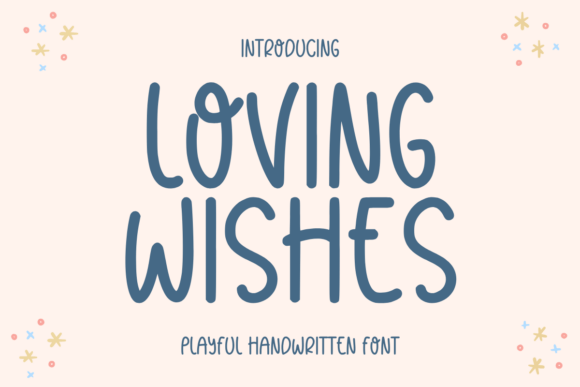
Loving Wishes Font: The Perfect Addition to Your DIY Projects
In the world of digital crafting, a font can make all the difference in bringing your creative vision to life. If you’re a fan of handwritten fonts that exude a sense of playfulness and friendliness, then you’re in luck. Introducing Loving Wishes, a fun and playful handwritten font that’s perfect for a wide range of DIY projects, from crafts and planners to KDP, stickers, greeting cards, and more.
What Makes Loving Wishes Font So Special?
Loving Wishes font is designed to bring a touch of whimsy and charm to your projects. Its cute and friendly style makes it an ideal choice for crafters, designers, and makers who want to add a personal touch to their creations. Here are some of the key features that make Loving Wishes font stand out:
- Handwritten style: Loving Wishes font is a handwritten font that mimics the look of handwritten text. It’s perfect for creating a personal and informal feel in your projects.
- Playful and fun: The font has a playful and fun vibe that’s perfect for crafts, planners, and other DIY projects.
- Cute and friendly: The font’s cute and friendly style makes it perfect for greeting cards, stickers, and other projects where you want to convey a sense of warmth and approachability.
- Versatile: Loving Wishes font is versatile and can be used for a wide range of projects, from crafts and planners to KDP and sublimation.
Uses of Loving Wishes Font
Loving Wishes font is perfect for a wide range of DIY projects, including:
- Crafts: Use Loving Wishes font to add a personal touch to your crafts, such as scrapbooking, card making, and other paper crafts.
- Planners: Add a playful touch to your planners and journals with Loving Wishes font.
- KDP: Use Loving Wishes font to create eye-catching titles and headings for your KDP (Kindle Direct Publishing) projects.
- Stickers: Create adorable stickers with Loving Wishes font that can be used for a wide range of projects, from scrapbooking to gift wrapping.
- Greeting cards: Use Loving Wishes font to create personalized and heartfelt greeting cards for special occasions.
- Cricut: Loving Wishes font is perfect for Cricut projects, such as cutting vinyl, iron-on designs, and paper crafts.
- Sublimation: Use Loving Wishes font to create stunning sublimation projects, such as mugs, tumblers, and phone cases.
Benefits of Using Loving Wishes Font
Here are some of the benefits of using Loving Wishes font in your DIY projects:
- Easily readable: Loving Wishes font is easy to read, even at small sizes, making it perfect for a wide range of projects.
- Highly versatile: The font can be used for a wide range of projects, from crafts and planners to KDP and sublimation.
- Time-saving: With Loving Wishes font, you can create professional-looking projects in no time, saving you time and effort.
Tips for Using Loving Wishes Font
Here are some tips for using Loving Wishes font in your DIY projects:
- Experiment with different sizes: Loving Wishes font looks great at a wide range of sizes, so don’t be afraid to experiment and find the perfect size for your project.
- Pair with other fonts: Loving Wishes font pairs well with other fonts, so try combining it with other fonts to create a unique look.
- Use for headings and titles: Loving Wishes font is perfect for headings and titles, so use it to add a touch of personality to your projects.
- Add embellishments: Consider adding embellishments, such as glitter or stickers, to give your projects an extra touch of personality.
In conclusion, Loving Wishes font is a fun and playful handwritten font that’s perfect for a wide range of DIY projects. Its cute and friendly style makes it an ideal choice for crafters, designers, and makers who want to add a personal touch to their creations. With its versatility, ease of use, and cost-effectiveness, Loving Wishes font is a great addition to any DIY project.